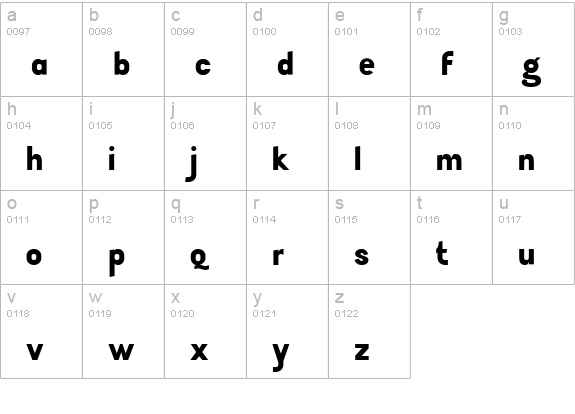
TenkoGemeinheit Font Details
TenkoGemeinheit font is a stunning display typeface that combines elegance and modernity. With its sleek lines and unique letterforms, this font is perfect for adding a touch of sophistication to any design project. Featuring a wide range of characters, including uppercase and lowercase letters, numbers, punctuation marks, and special symbols, TenkoGemeinheit font offers endless possibilities for creative expression. Whether you're designing a logo, creating a poster, or crafting a social media graphic, this font will make your text stand out with its distinct style. One of the best parts about TenkoGemeinheit font is that it is completely free to download. Yes, you read that right – this high-quality font can be yours without spending a dime! Simply head over to FontsMarket.com and get your hands on this fantastic typeface. Not only is TenkoGemeinheit font visually stunning, but it is also incredibly versatile. Its clean and crisp design makes it suitable for a variety of projects, from branding to web design. Whether you're going for a minimalist look or a bold statement, this font has got you covered. Don't miss out on the opportunity to enhance your designs with TenkoGemeinheit font. Download it for free at FontsMarket.com and unlock a world of typographic possibilities.